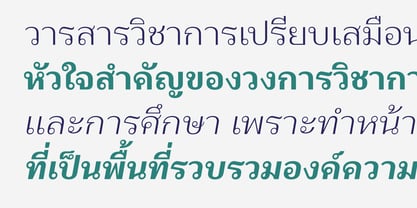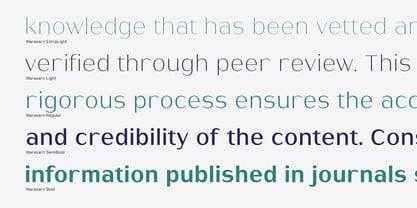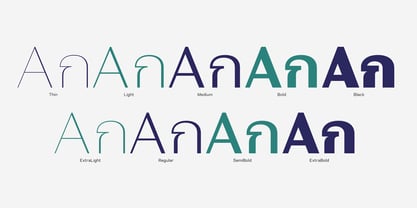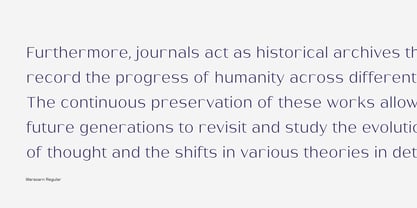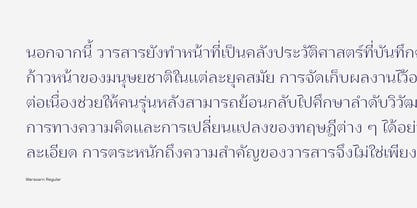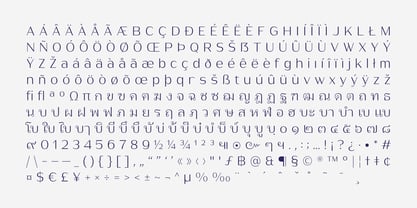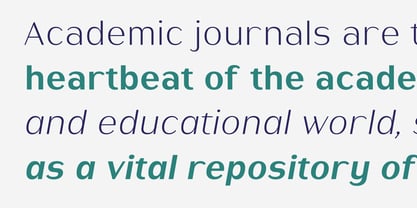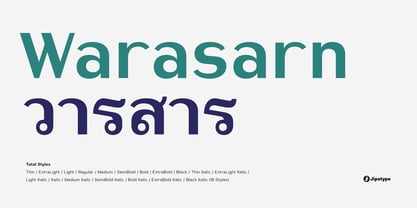
Warasarn
Die Schriftfamilie Warasarn wurde von Anupap Jaichumnan entworfen und von Jipatype veröffentlicht. Warasarn enthält 18 Stile und Familienpaketoptionen. Mehr über diese Familie
Warasarn is a sophisticated looped Thai typeface that masterfully bridges the gap between traditional heritage and contemporary design. Featuring an expansive family of 18 styles ranging from elegant Thin to commanding Black with corresponding italics it offers unparalleled versatility for any creative project. Meticulously crafted with a core focus on legibility, its clean skeletal structure and balanced proportions ensure a comfortable reading experience. Warasarn is the perfect choice for editorial excellence in magazines and journals, professional branding, impactful headlines, providing a timeless aesthetic that remains sharp and authoritative across all platforms.